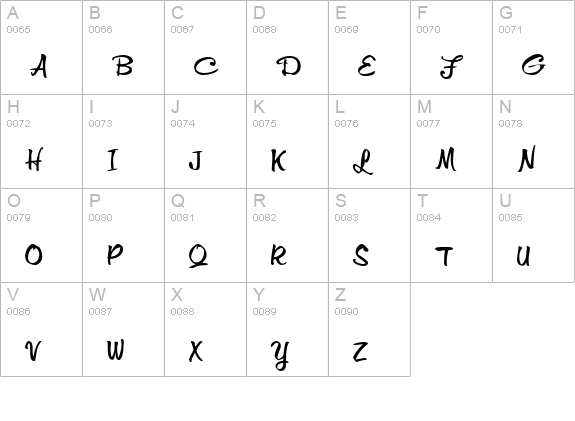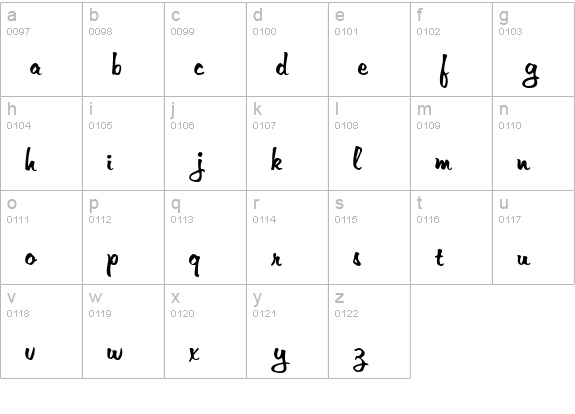
MemoExtended Normal Font Details
MemoExtended Normal is the standard, neutral variant in the MemoExtended typeface family \xE2\x80\x94 well suited to general body text, paragraphs, and standard typographic work.
MemoExtended Normal font is a versatile and modern typeface that is perfect for a wide range of design projects. With its clean lines and balanced proportions, this font is both professional and easy to read. Whether you are working on a website, poster, or branding materials, MemoExtended Normal font will add a touch of sophistication to your work. The best part? MemoExtended Normal font is completely free to download at FontsMarket.com. You can easily access this stylish font and enhance your designs without any cost. Don't miss out on the opportunity to elevate your projects with the elegance of MemoExtended Normal font - get it now and start creating beautiful designs today!